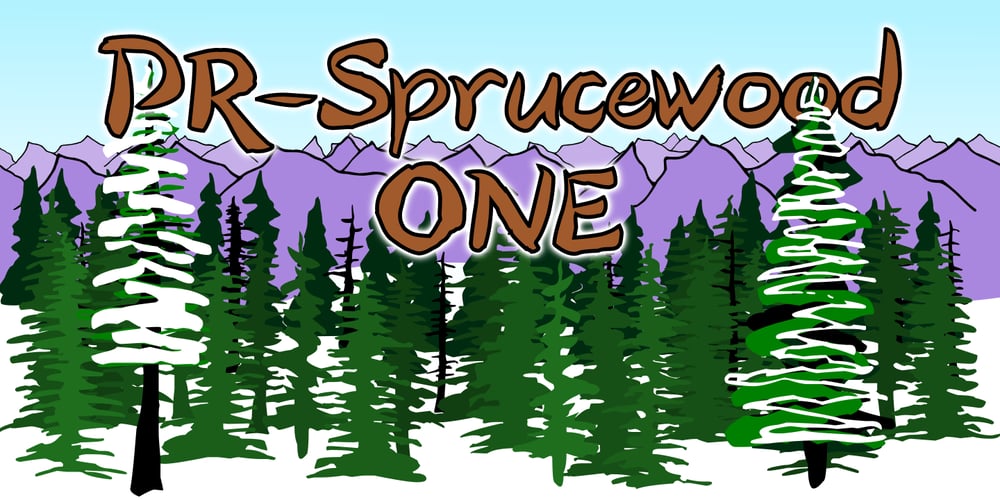
PR Sprucewood 01
PR Sprucewood 01 font
PR Sprucewood 01 Font Family was designed by Peter Rempel and published by PR Fonts. PR Sprucewood 01 contains 1 styles and family package options. This font is a collection of sketched spruce trees. Some are filled outlines, some are bare trunks and branches, and some are rough squiggles. Each can be used individually to suggest a tree, and the different shapes can be layered in different colors, to suggest texture, or snow cover. There is also a glyph of a mountain range, for a horizon behind your forest.